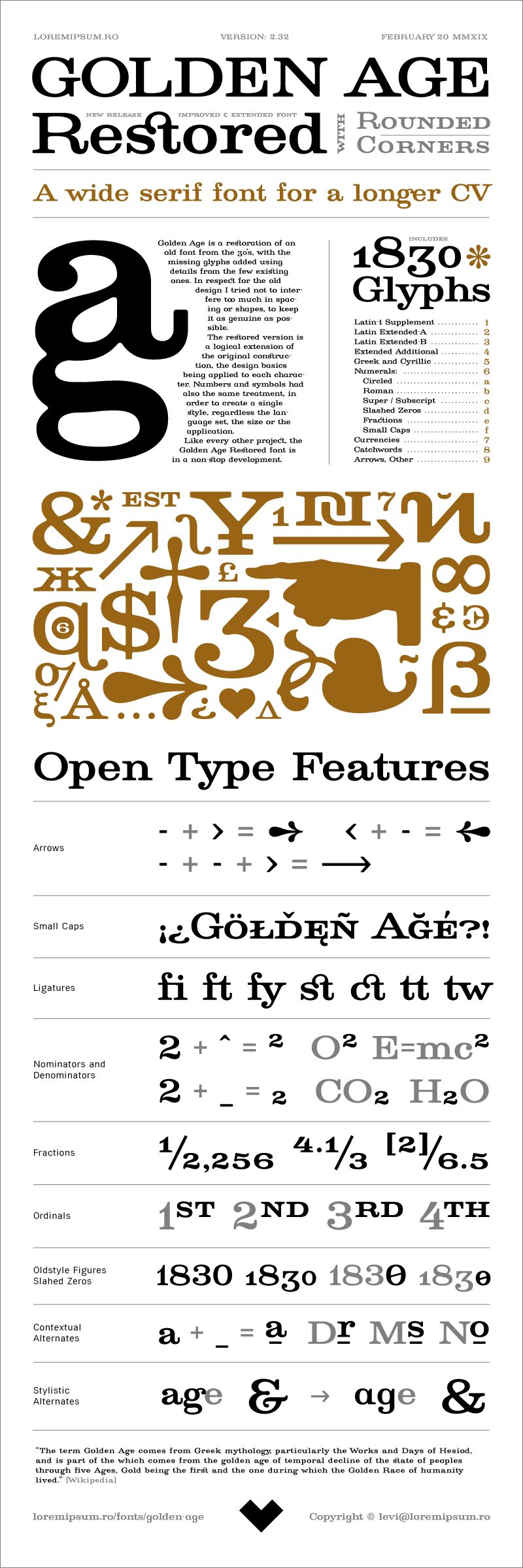
Golden Age Restored
Golden Age Restored is a stunning serif font designed by Levi Szekeres. With its expanded width, this font oozes elegance and sophistication, making it the perfect choice for projects such as wedding invitations, high-end fashion branding or luxury product packaging. The sharp serifs and clean lines of Golden Age Restored give it a timeless appeal that would suit vintage-inspired designs just as well as more contemporary layouts. Use this font to add a touch of class and refinement to your next project.
Golden Age Restored is a new and extended release of the raw Golden Age font, including a large number of glyphs and open type features. Like every other project, this is also open for adjustments, so any user input is welcomed. For terms of use visit loremipsum.ro.